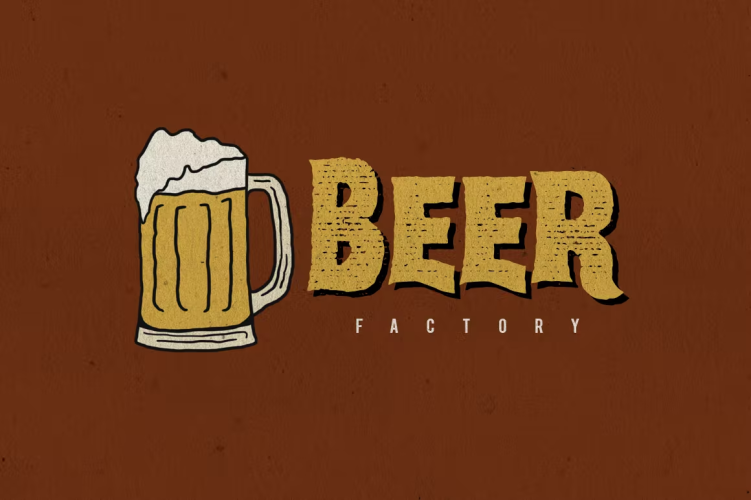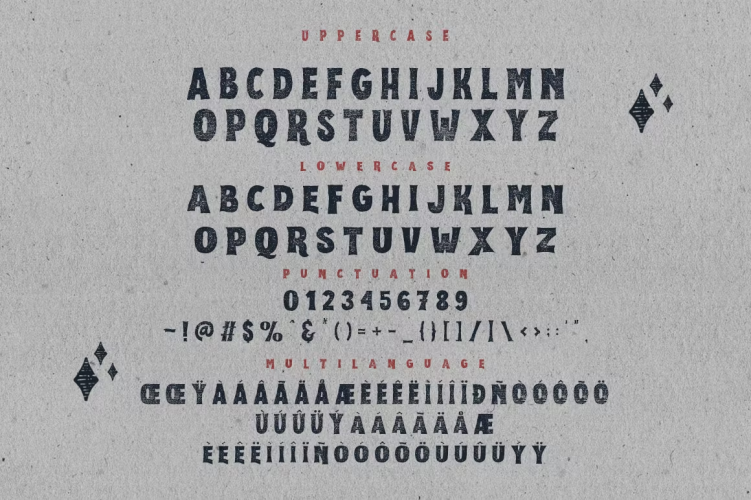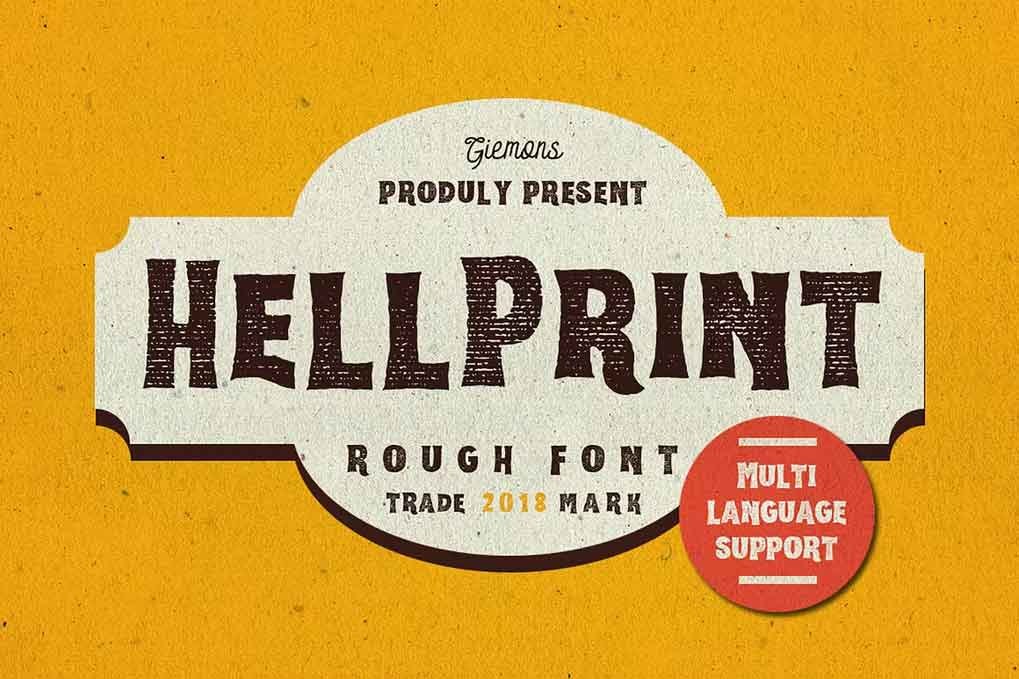
Helprint Typeface Font
a Hellprint Typeface is Rough Font. Can make it easier to convey the message in your design. Use for awesome display, labeling, clothing, movie sceen, poster, movie title, gigs, album covers, logos, and much more.
Helprint Typeface Font is a Serif Fonts font that brings a professional and versatile look to your projects. a Hellprint Typeface is Rough Font.